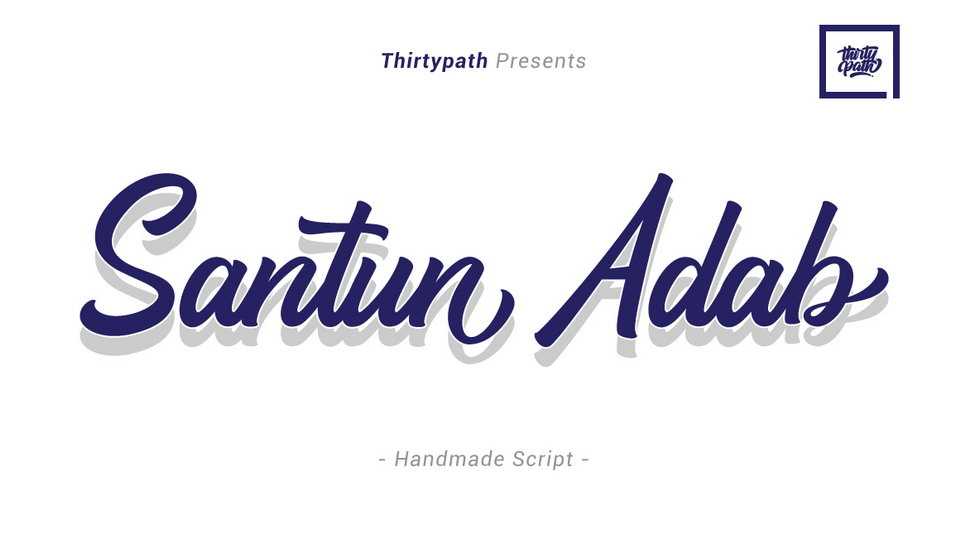
Download Santun Adab font, an amazing display handbrush script, simple and easy to create awesome lettering. Perfect for many different project ex: quotes, blog header, poster, wedding, branding, logo, fashion, apparel, letter, invitation, stationery, etc.
Designer: Thirtypath